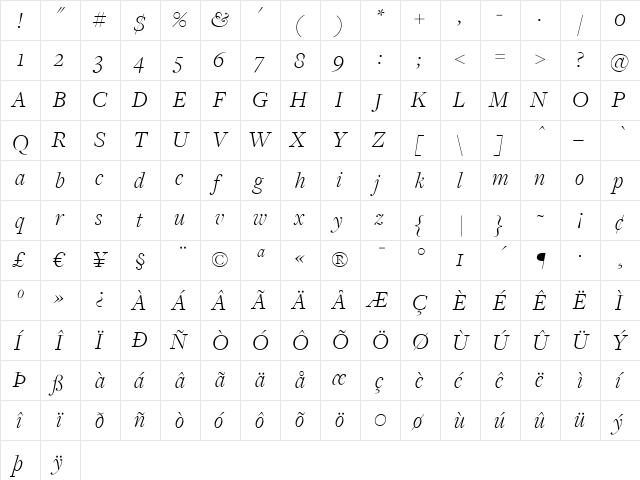
FreightDispLightItalic Regular
| Foundry | Joshua Darden & Phil's Fonts, Inc |
| Designer | Joshua Darden |
Design Context for FreightDispLightItalic Typeface
FreightDispLightItalic is a composed and adaptable typeface that performs quietly and consistently across a wide range of design contexts. Its italic angle brings a sense of urgency and motion to the letterforms. The delicate stroke weight brings airiness and refinement to layouts.